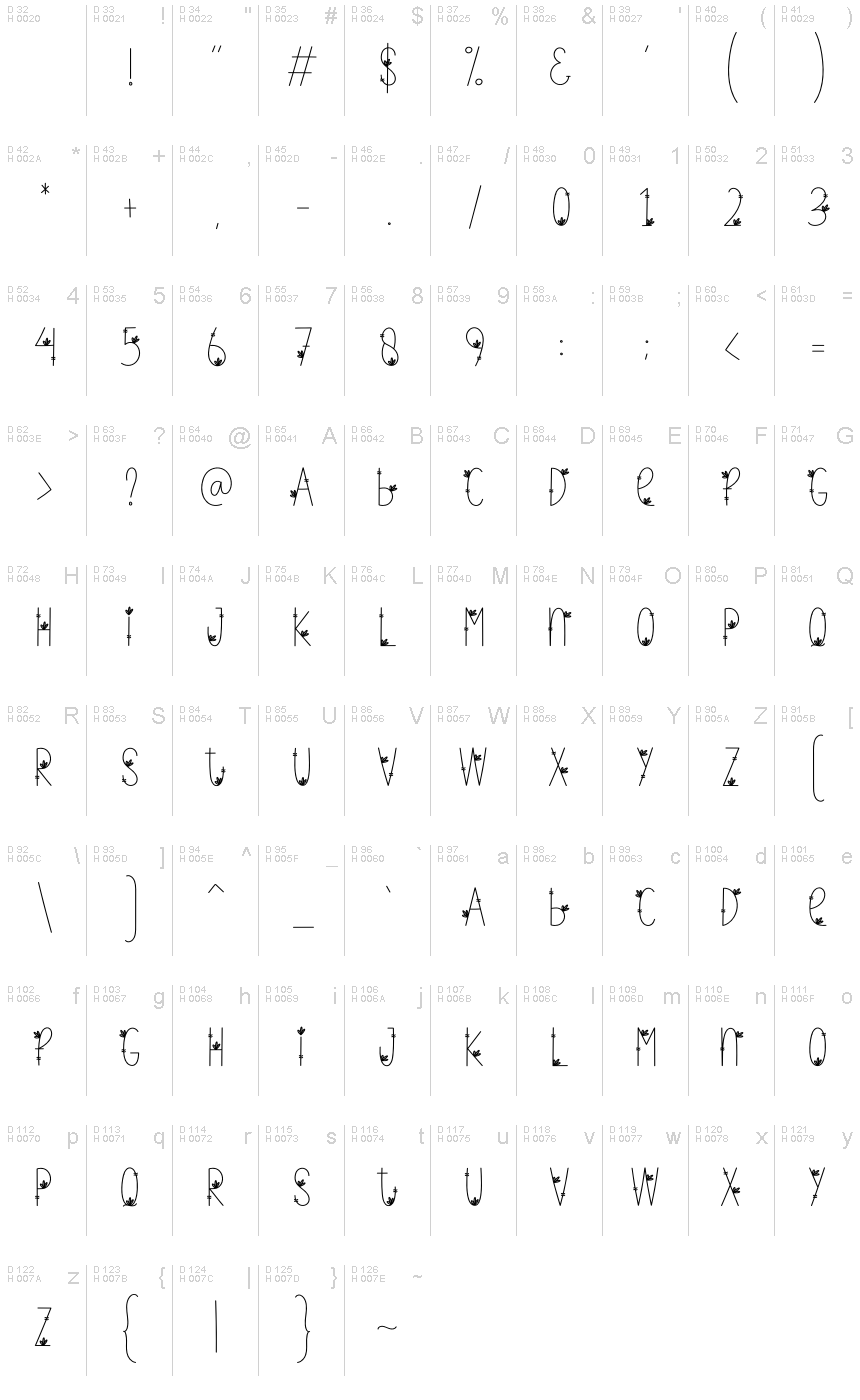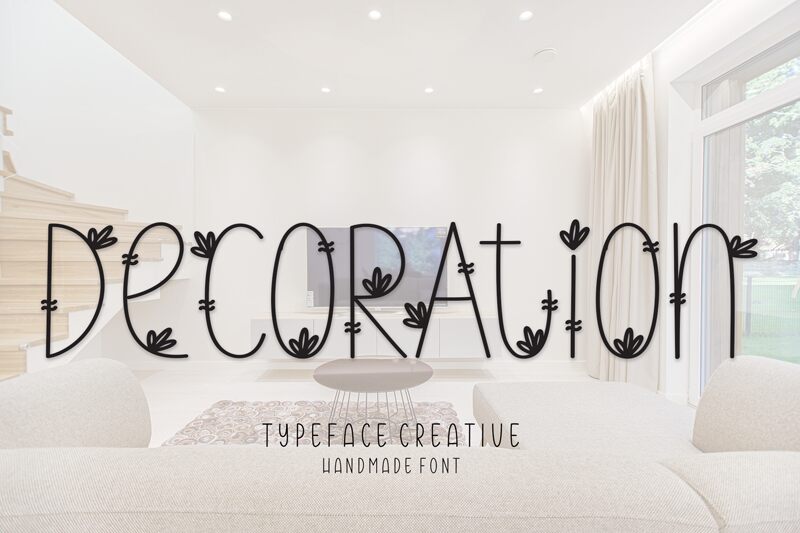
Decoration
Decoration is a captivating display font that exudes a sense of whimsy and elegance. Designed by Andi Moz, this decorative typeface features light, condensed strokes that intertwine to create a delicate, organic aesthetic. The playful, hand-drawn quality of the letterforms effortlessly conveys a sense of artistry and creativity.
This font's versatility lends itself to a wide range of design applications, from eye-catching headlines and event brochures to upscale packaging and wedding invitations. Its unique blend of refined style and playful charm makes Decoration an excellent choice for projects that require a distinctive, memorable visual identity.